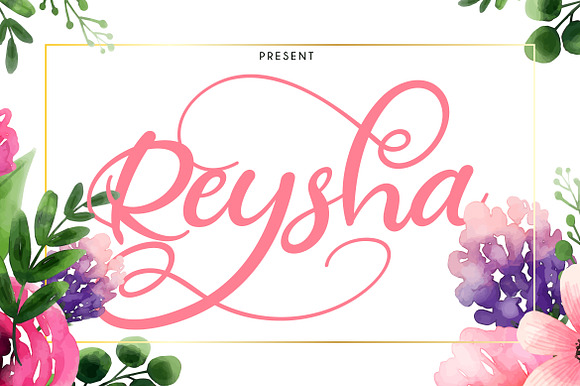
Reysha Flower Script Font
Reysha Flower Script Font by Vunira is a font selected for branding, posters, packaging, typography.
Why Reysha Flower Script Font is worth a look
Reysha Flower Script Font by Vunira fits naturally into Branding, posters, packaging, typography.